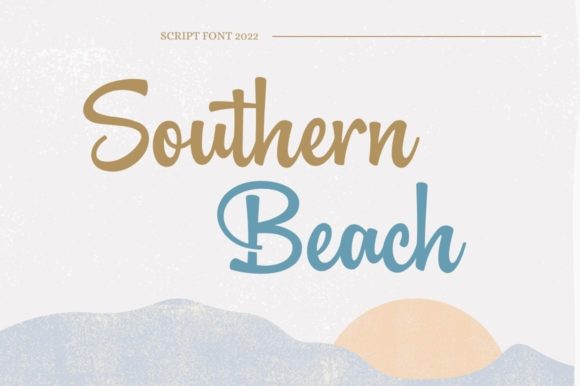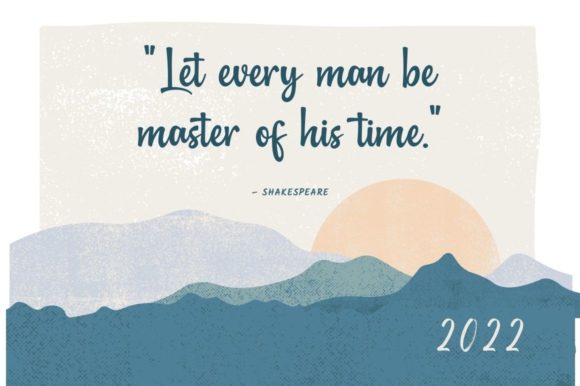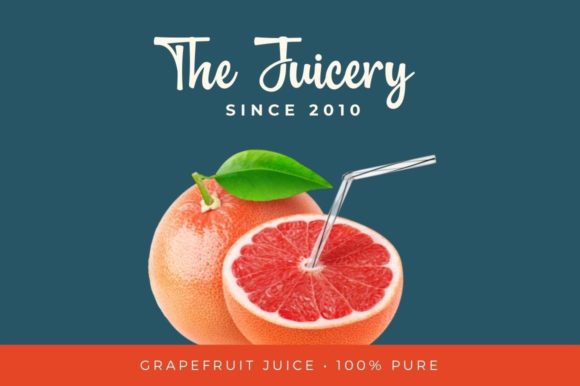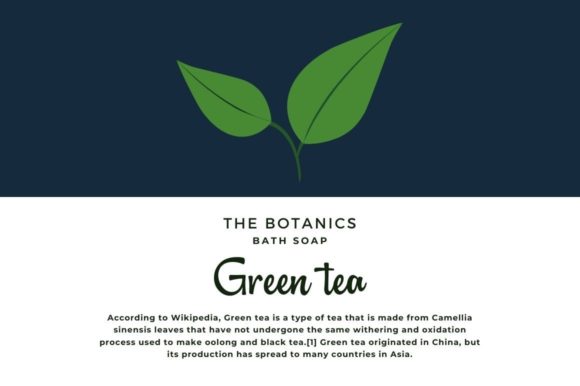
Southern Beach Font: Casual Script for Branding & Social Media
About the Southern Beach Font
Make a bold statement with Southern Beach Font, a powerful and memorable font. Southern Beach is a casual paint brushed script font. It is perfect for branding, invitation, stationery, wedding designs, social media posts, advertisements, product packaging, product designs, label, photography, watermark, special events, and more.
Southern Beach Font Usage Examples
Southern Beach Font Example